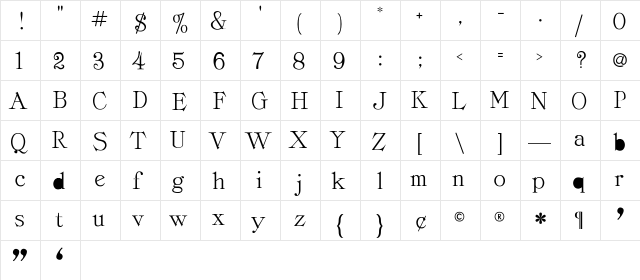
Classica-Roman Regular
Design Context for Classica-Roman Typeface
Classica-Roman wears its vintage influences proudly, with letterforms that recall mid-century signage, classic packaging, and nostalgia-driven design.
Font Pairing: Combine Classica-Roman with a simple slab or neutral sans — period-accurate companions reinforce the vintage feel without competing for attention.
Pro Tip: Lean into Classica-Roman's period character by pairing it with aged paper textures, muted colour palettes, and vintage illustration styles.